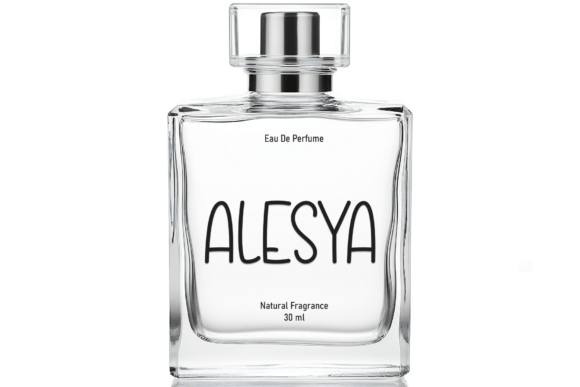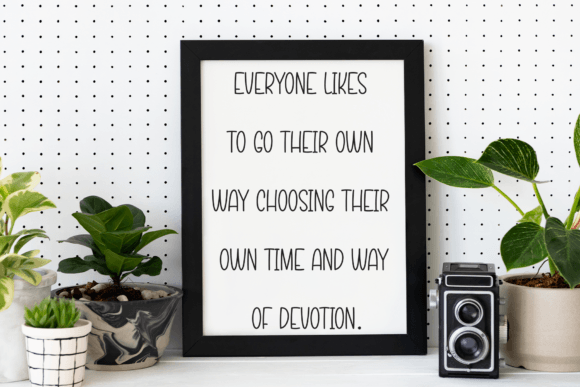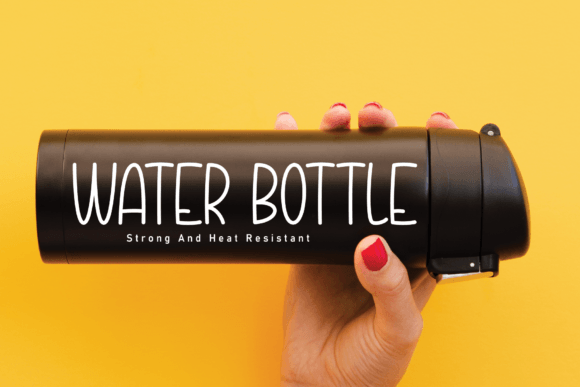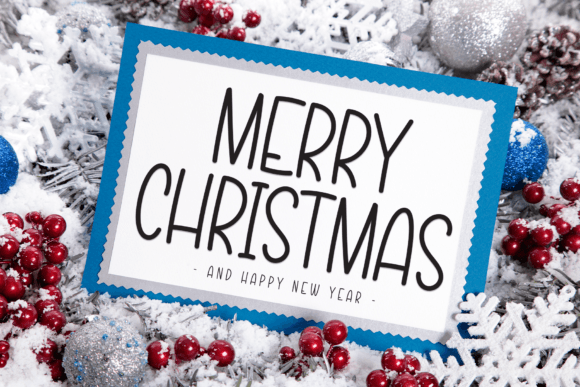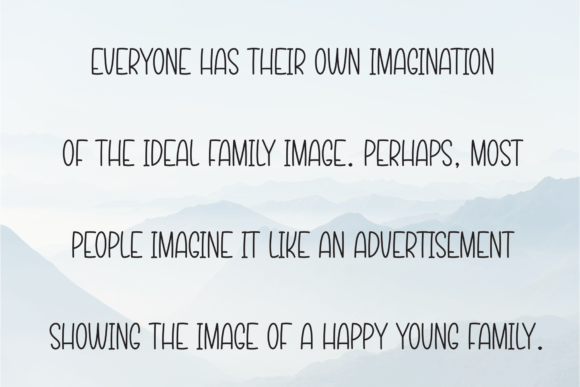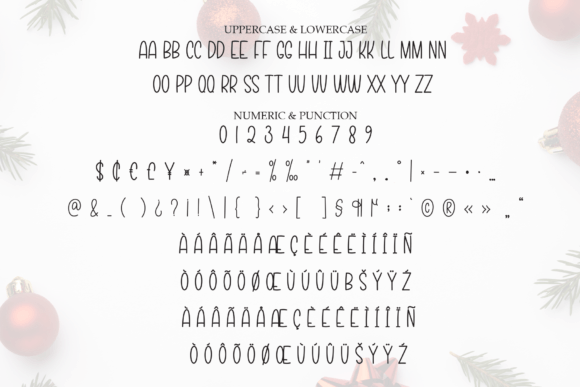
Introducing Christmas Ornament Font: A Sweet and Friendly Handwritten Delight
Are you looking for a font that adds a touch of whimsy and fun to your designs? Look no further than the Christmas Ornament Font! This sweet and friendly handwritten font is perfect for creating eye-catching wedding invitations, cards, and other designs that require a playful twist. In this article, we’ll dive into the features and benefits of the Christmas Ornament Font, and explore how you can use it to elevate your designs.
What is Christmas Ornament Font?
Christmas Ornament Font is a beautiful, handwritten font that exudes a sense of warmth and friendliness. Its cute and versatile design makes it an ideal choice for a wide range of design projects, from wedding invitations and cards to social media graphics and craft projects. The font’s playful and whimsical feel is sure to capture the attention of your audience and leave a lasting impression.
Key Features of Christmas Ornament Font
- Cute and Versatile Design: The Christmas Ornament Font features a unique and charming design that’s perfect for adding a touch of personality to your designs.
- Handwritten Style: The font’s handwritten style gives it a warm and personal feel that’s perfect for creating designs that feel approachable and friendly.
- Easy to Read: Despite its playful design, the Christmas Ornament Font is easy to read, making it perfect for use in body text and headlines.
- Multilingual Support: The font supports multiple languages, making it a great choice for designers who work with international clients.
Uses for Christmas Ornament Font
The Christmas Ornament Font is a versatile design tool that can be used in a wide range of projects, including:
- Wedding Invitations: Add a touch of whimsy and romance to your wedding invitations with the Christmas Ornament Font.
- Cards and Stationery: Use the font to create eye-catching cards, gift tags, and other stationery items.
- Social Media Graphics: Add a playful touch to your social media graphics, including Facebook posts, Instagram stories, and Twitter headers.
- Craft Projects: Use the font to add a personal touch to your craft projects, including scrapbooking, DIY signs, and other handmade items.
Tips for Using Christmas Ornament Font
To get the most out of the Christmas Ornament Font, here are a few tips to keep in mind:
- Use it Sparingly: While the font is cute and playful, it can be overwhelming if used too much. Use it sparingly to add a touch of personality to your designs.
- Pair it with Other Fonts: Experiment with pairing the Christmas Ornament Font with other fonts to create a unique and visually appealing design.
The Christmas Ornament Font is a sweet and friendly handwritten font that’s perfect for adding a touch of whimsy and fun to your designs. With its cute and versatile design, easy readability, and multilingual support, it’s an ideal choice for designers and crafters looking to create eye-catching wedding invitations, cards, and other designs. By following the tips outlined in this article, you can get the most out of the Christmas Ornament Font and create designs that are sure to capture the attention of your audience.